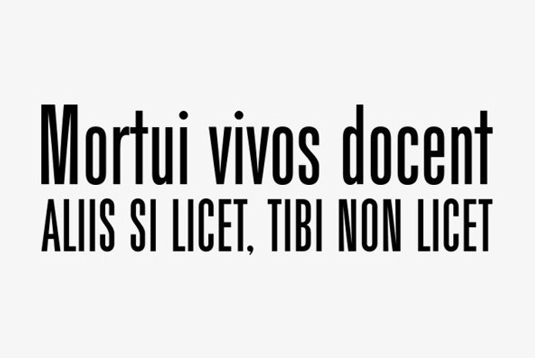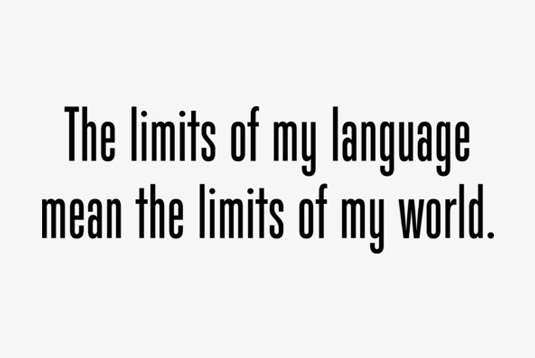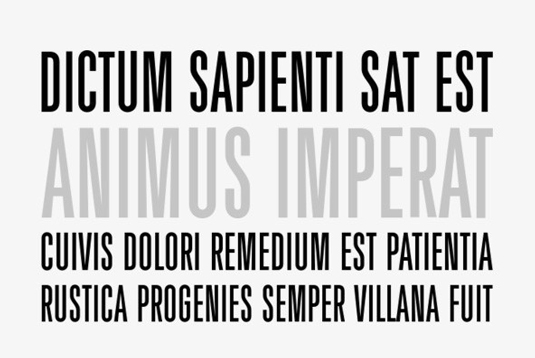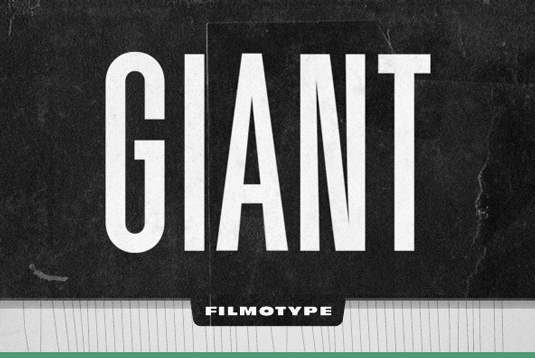
Font of the day: Giant
Every day we showcase the best fonts on the web. Today it's Giant by Filmotype.
Giant by Filmotype
Available from font shop YouWorkForThem, today's font of the day is described thus: "Initially designed in the early-to-mid 1950s, Filmotype Giant is part of a larger group of condensed sans serifs offered by Filmotype at the demand of its customers based on their versatility, legibility, and timeless aesthetic."